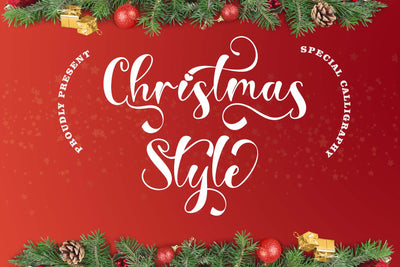
Christmas Style
"Christmas Style" is a calligraphy font created for Christmas. This font is very beautiful and elegant. Equipped with uppercase letters, lowercase letters, swash, titling, alternative uppercase letters, alternative lowercase letters, multilingual support, ligatures, numerals and punctuations. Very suitable for Christmas greetings, invitations, weddings, and more.